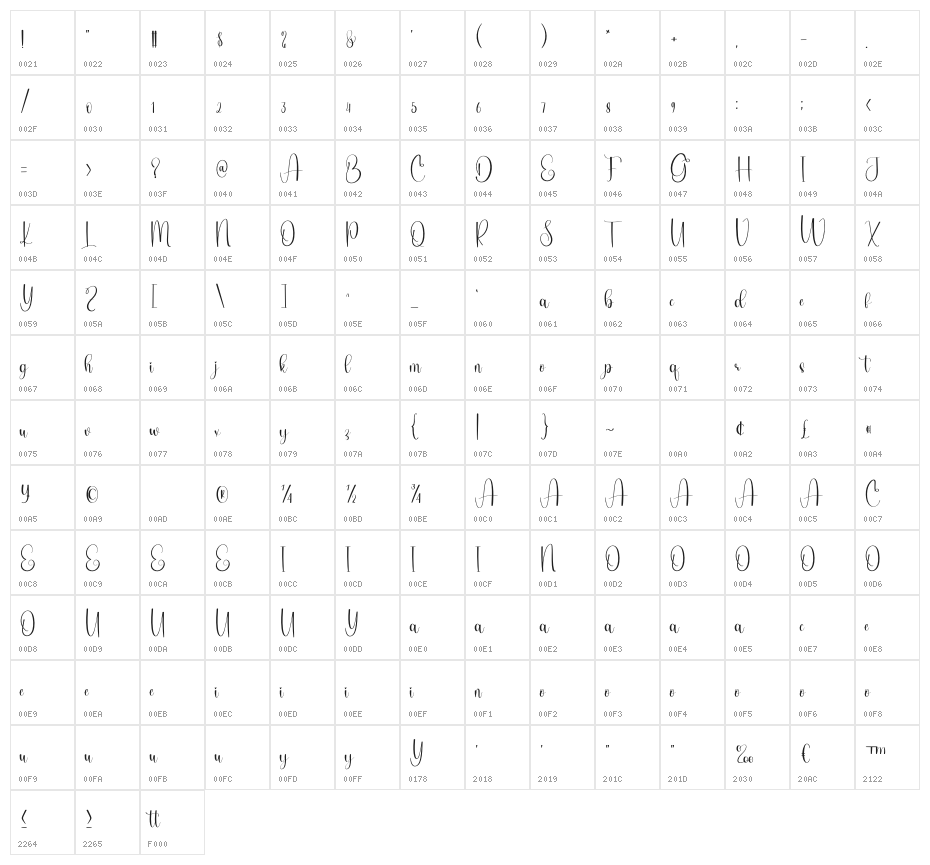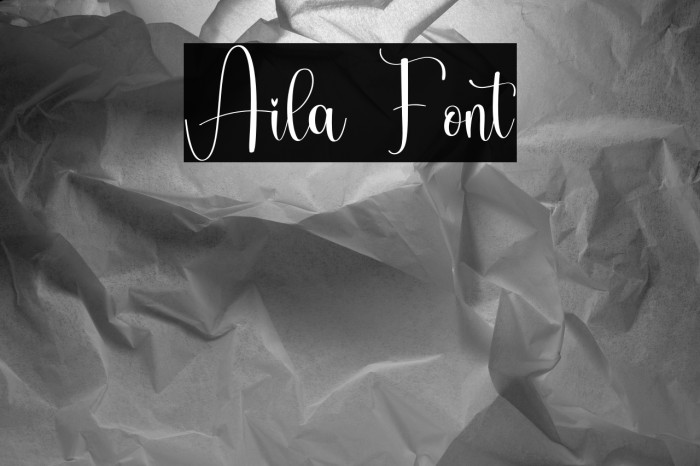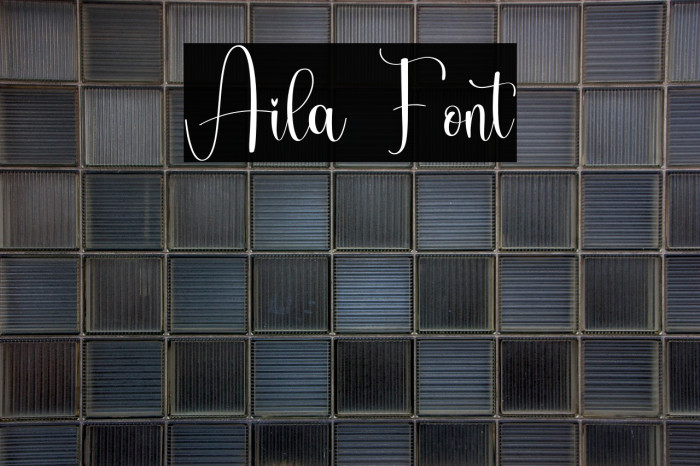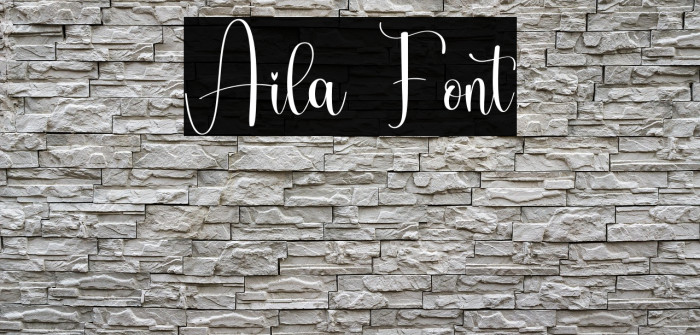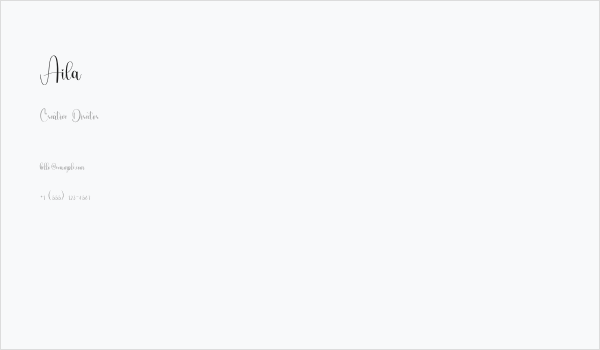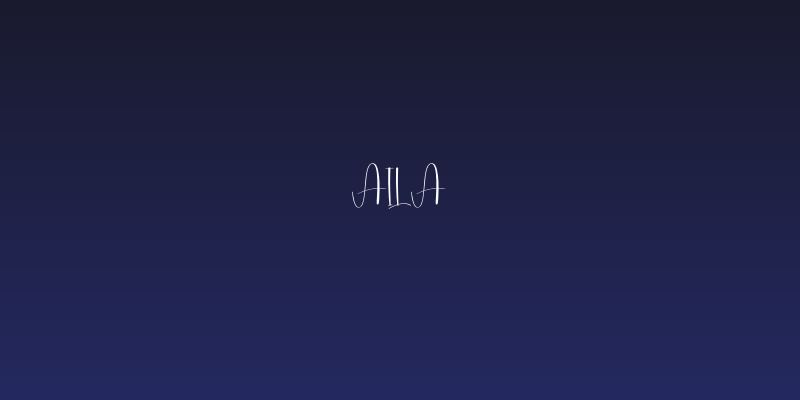
Aila Font
Aila Description
Elegant, flowing script font with high contrast between thick and thin strokes, featuring decorative swashes and a handwritten, calligraphic appearance. The characters are tall with generous ascenders and descenders, and the overall spacing is airy.
| Overall Style | Decorative, Elegant, Handwritten |
| Use Case | Logos, Invitations, Headlines, Decorative text |
| Proposed Projects | Wedding invitations, greeting cards, branding, feminine logos, event posters, social media graphics. |